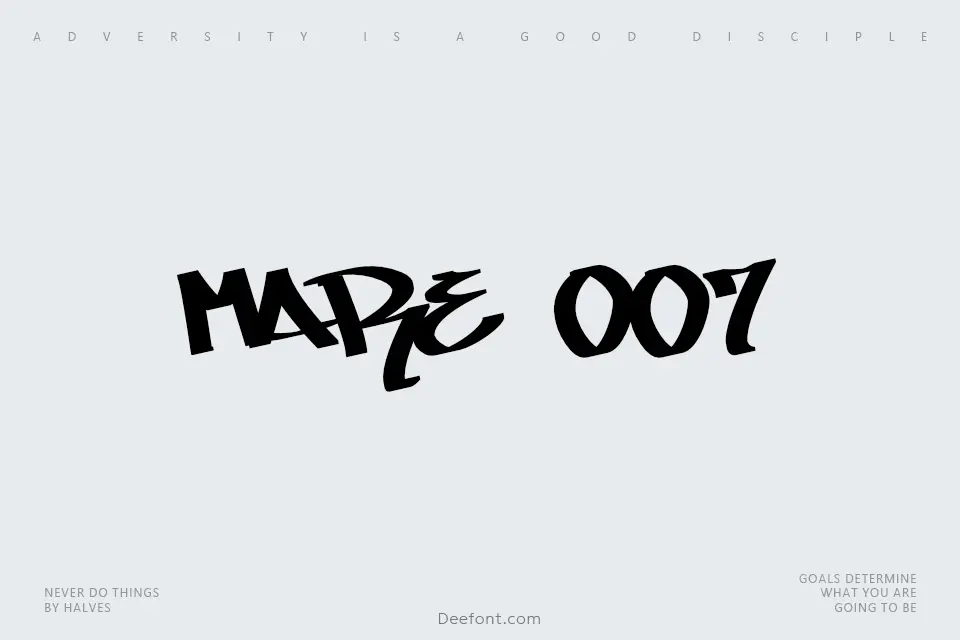
Mare 007 Font
Mare 007 is a bold, dynamic graffiti-style script font that brings street art aesthetics to your designs. Created by The Craze Co, this energetic typeface features hand-painted letterforms with uneven, slightly tilted strokes that evoke an authentic urban art feel. Perfect for edgy logos, music promotions, youth-focused branding, and creative poster design, Mare 007 delivers a rebellious, contemporary edge to any project. Its raw, free-flowing style captures the energy of street culture while maintaining strong visual impact.